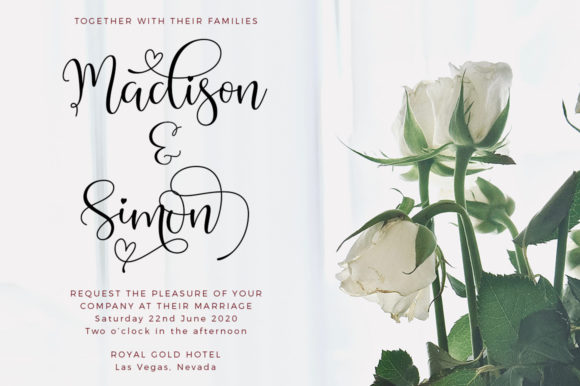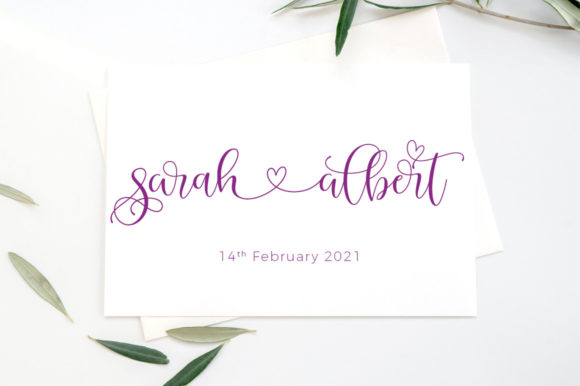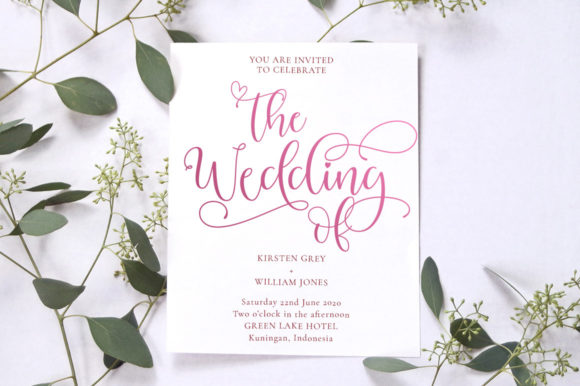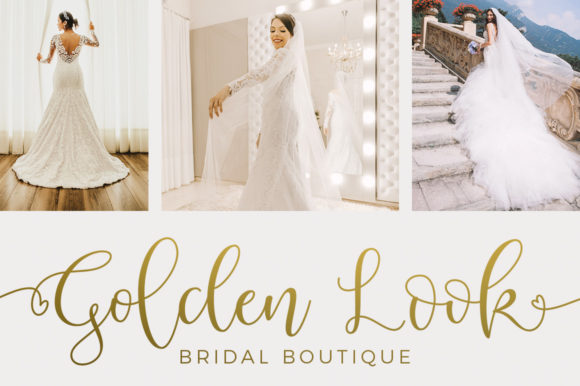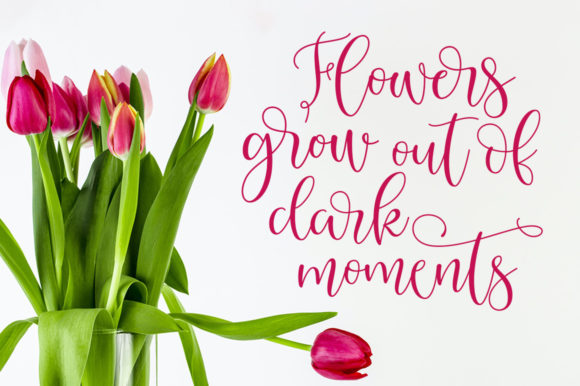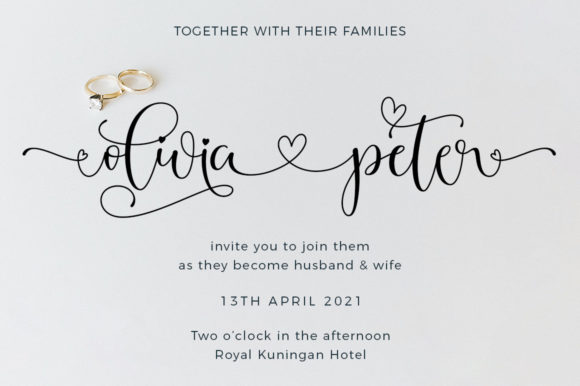
The Elegant Charm of Abygail Font: A Designer’s Delight
I’ll never forget the time I was working on a wedding invitation project, and my client asked for a font that exuded elegance and sophistication. I scoured the internet, tried countless fonts, but nothing seemed quite right. That was until I stumbled upon Abygail Font. Its flowing lines and beautiful glyphs instantly captured my attention, and I knew I had found the perfect fit. In this article, I’ll share my experience with Abygail Font, its features, and how to make the most of it in your designs.
An Honest Review of Abygail Font
- ✨ Elegant and flowing lines that add a touch of sophistication to any design
- ✅ Features a varying baseline, which gives it a unique and organic feel
- 💫 Smooth lines and gorgeous glyphs that make it perfect for creative projects
- 🎉 Stunning alternates that offer flexibility and creativity in your designs
While Abygail Font is an excellent choice for many projects, there are a few things to keep in mind:
- ⚠️ Some users may find the font’s varying baseline challenging to work with, especially when creating uniform text blocks
- 🤔 The font’s elegance may not be suitable for very informal or playful designs
The Story Behind Abygail Font
Abygail Font was designed with the intention of creating a beautiful, elegant script font that captures the essence of handwritten calligraphy. The designer aimed to create a font that would be perfect for creative projects, such as wedding invitations, quotes, and greeting cards. With its smooth lines, gorgeous glyphs, and stunning alternates, Abygail Font has become a popular choice among designers and crafters.
Q: What type of projects is Abygail Font best suited for?
A: Abygail Font is perfect for projects that require an elegant and sophisticated touch, such as wedding invitations, thank you cards, quotes, and greeting cards.
Q: Does Abygail Font support OpenType features?
A: Yes, Abygail Font features a range of OpenType features, including stylistic alternates, glyphs, and more.